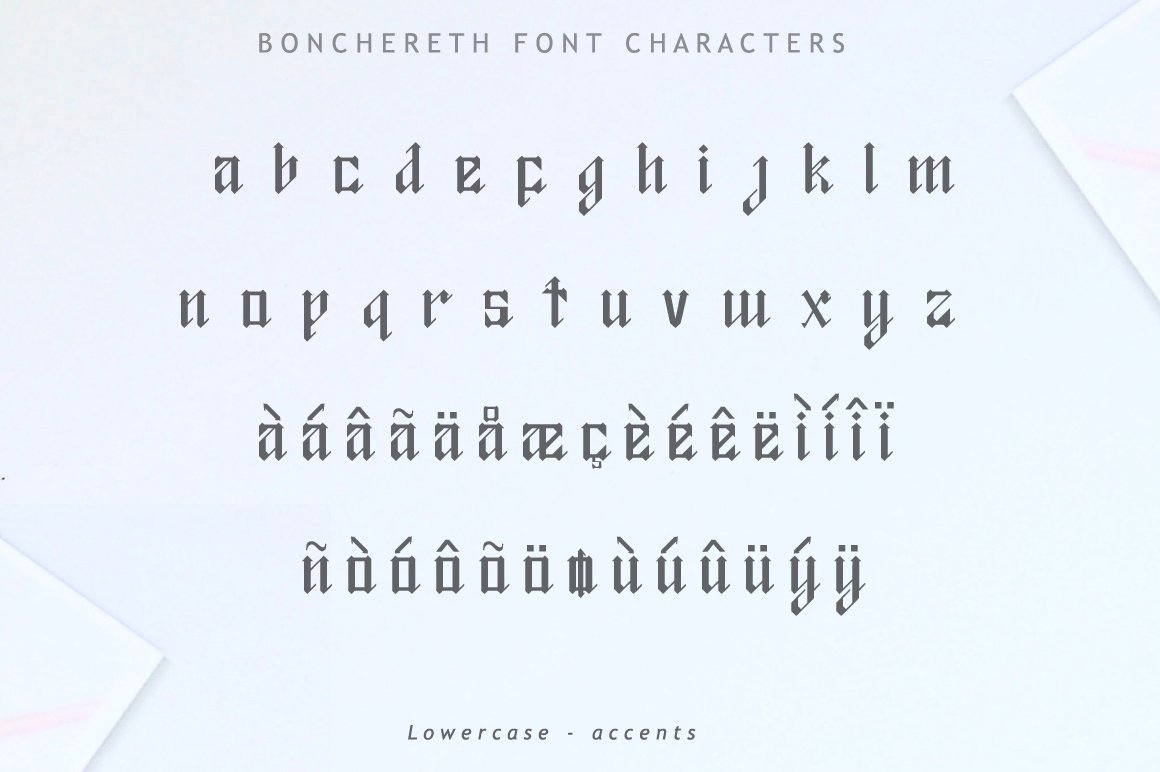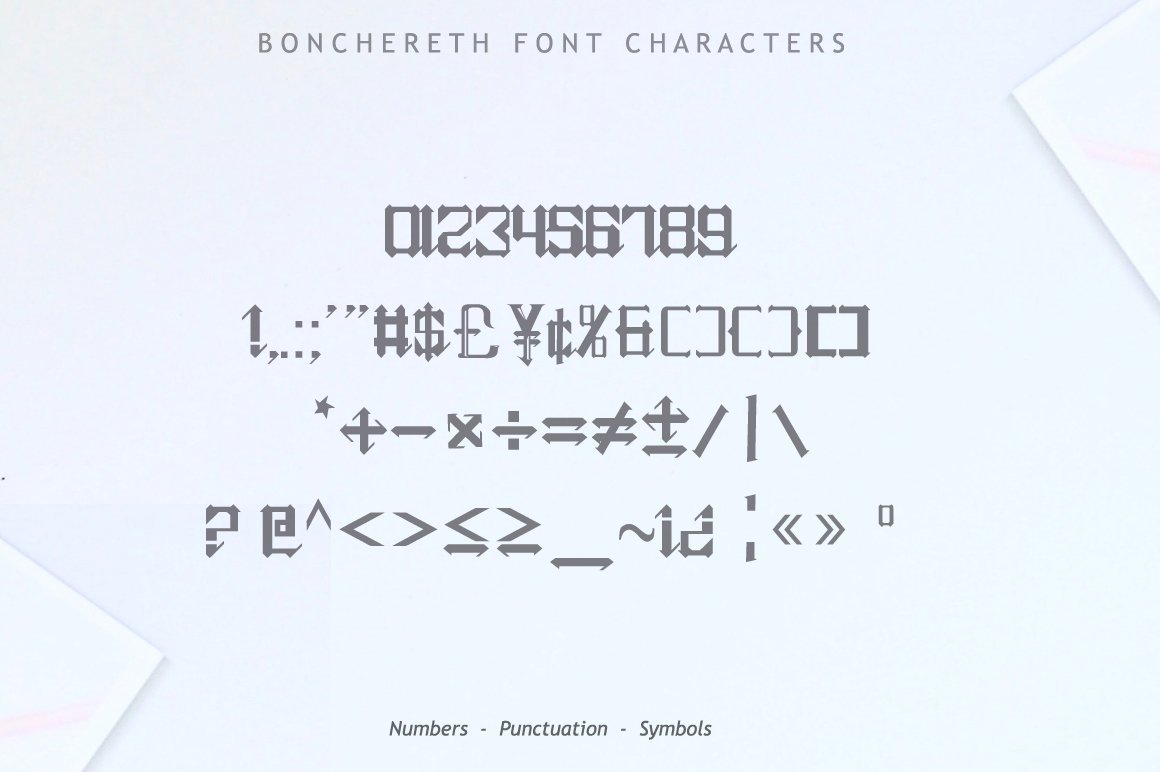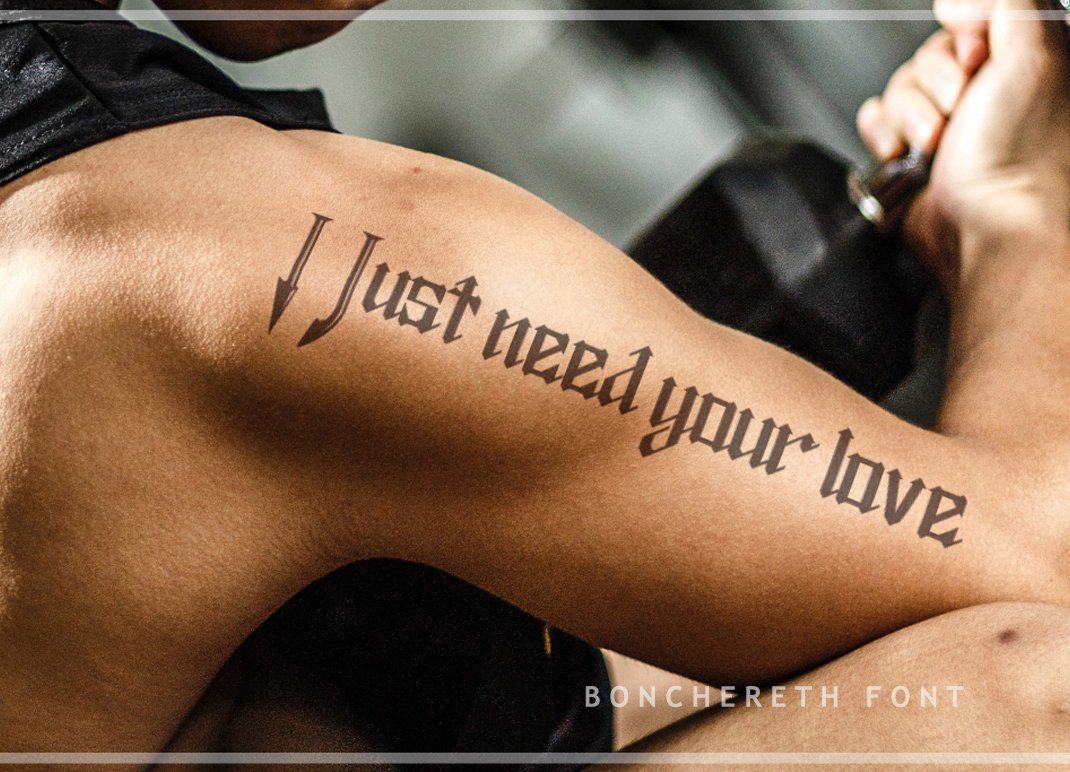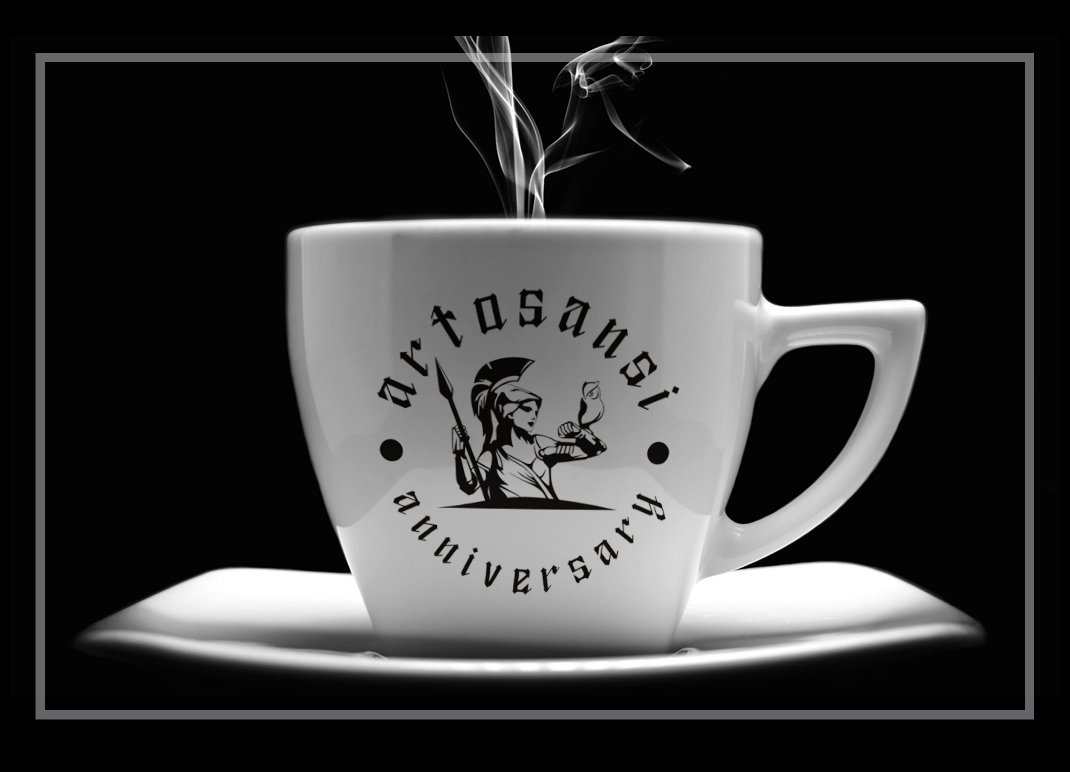
About Bonchereth Font
Bonchereth Font Bonchereth is a unique vintage & ornamental style custom font. Great for your vintage themed designs, tattos, logos, headline, letterheads, etc. Features : Available in single OTF and TTF files Uppercase A-Z Lowercase a-z Numbers 0-9 Accents Punctuation PUA Encoded Multilingual support Support for Windows, Mac and Linux OS If you have any questions regarding this product kindly leave your message through the contact form, comment field or contact us at  . Enjoy the font!! Thank you.. Don’t forget to visit our shop and check our products click here